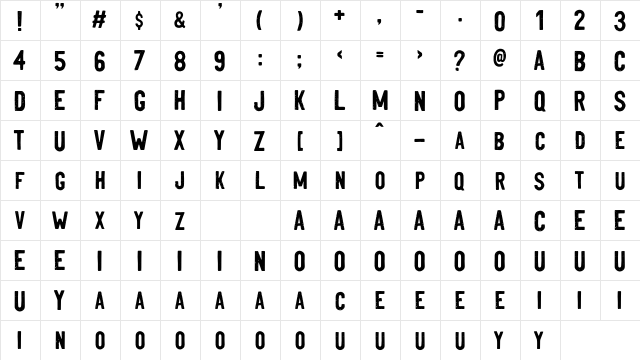
Yesterday Dream Regular
Design Context for Yesterday Dream Typeface
Yesterday Dream is a composed and adaptable typeface that performs quietly and consistently across a wide range of design contexts.